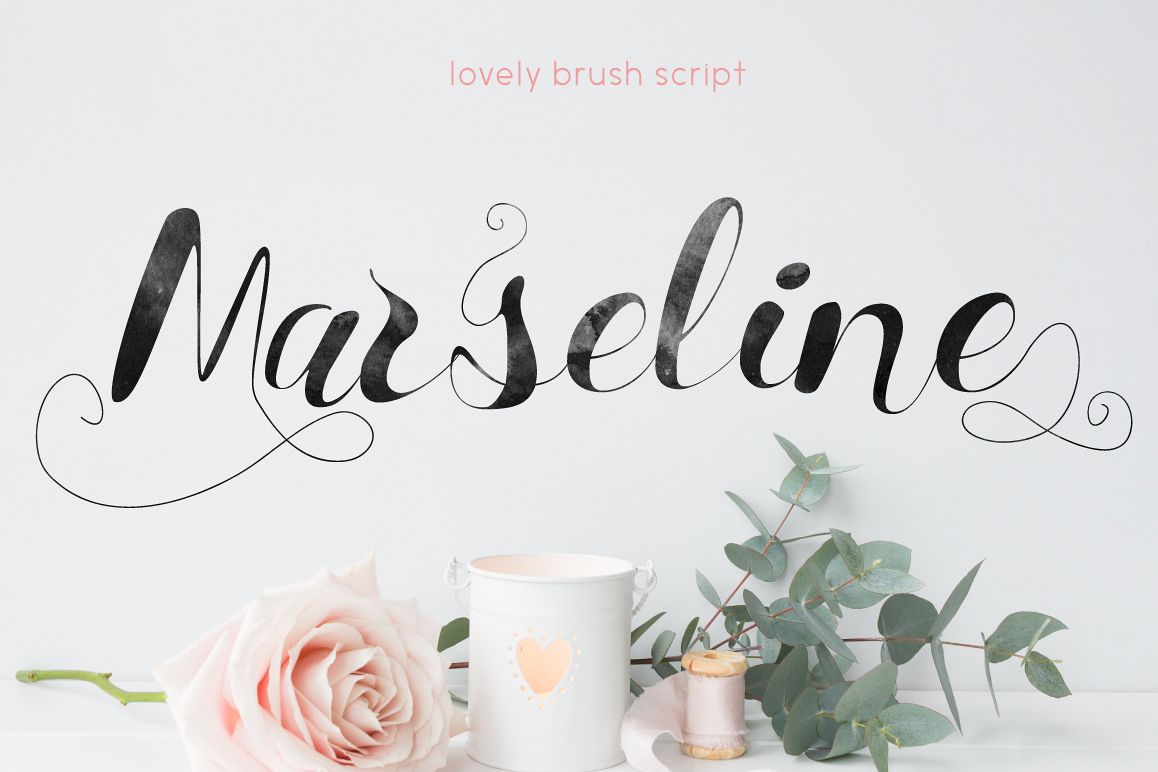
Marseline
Marseline!
It's romantic and modern calligraphy script font with alternative letters.
This fonts are perfect for wedding invitation or postcard for your friend. Also with their help, you can create a logo or beautiful frame for your home. Or just use for your small business.